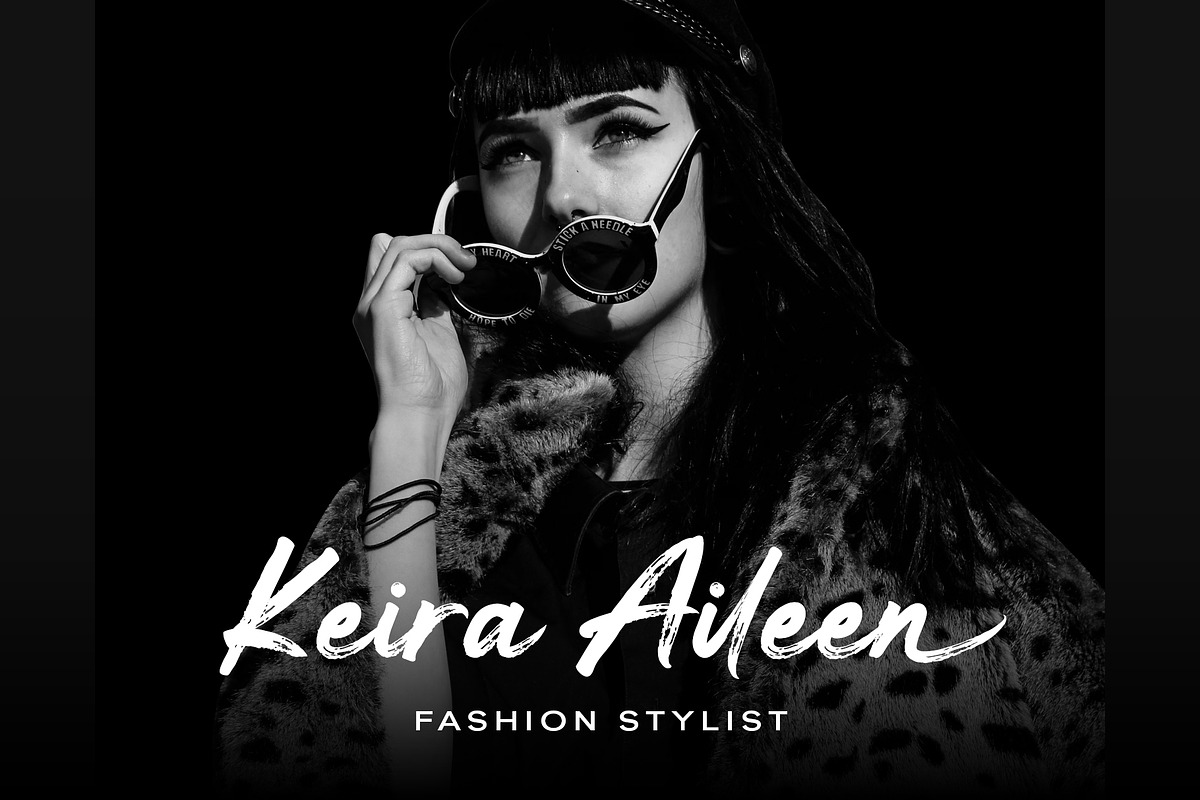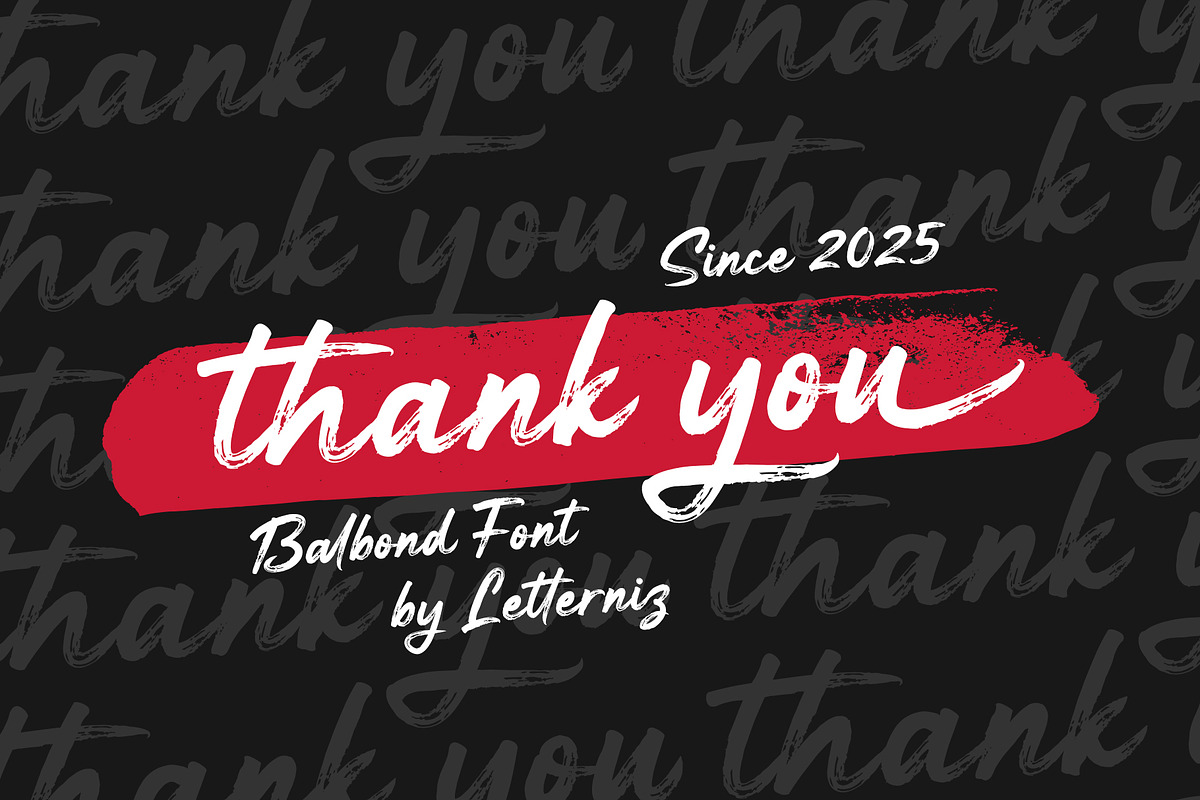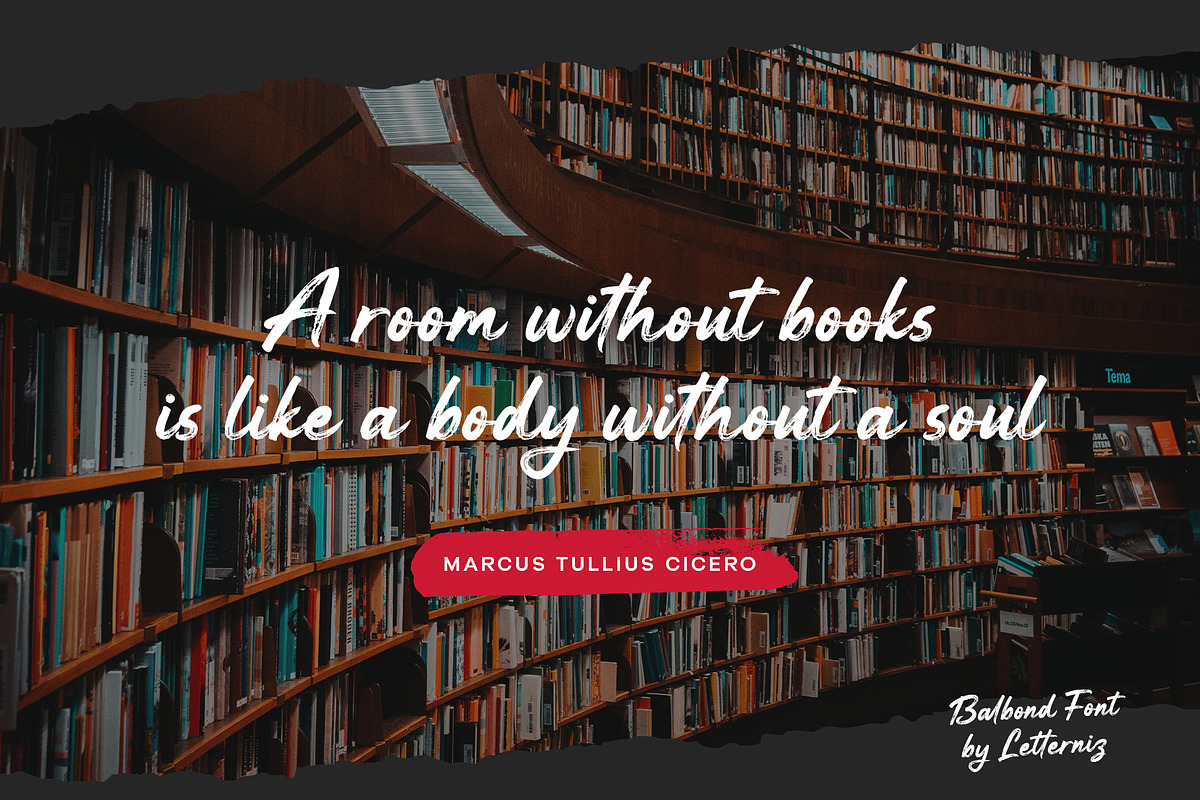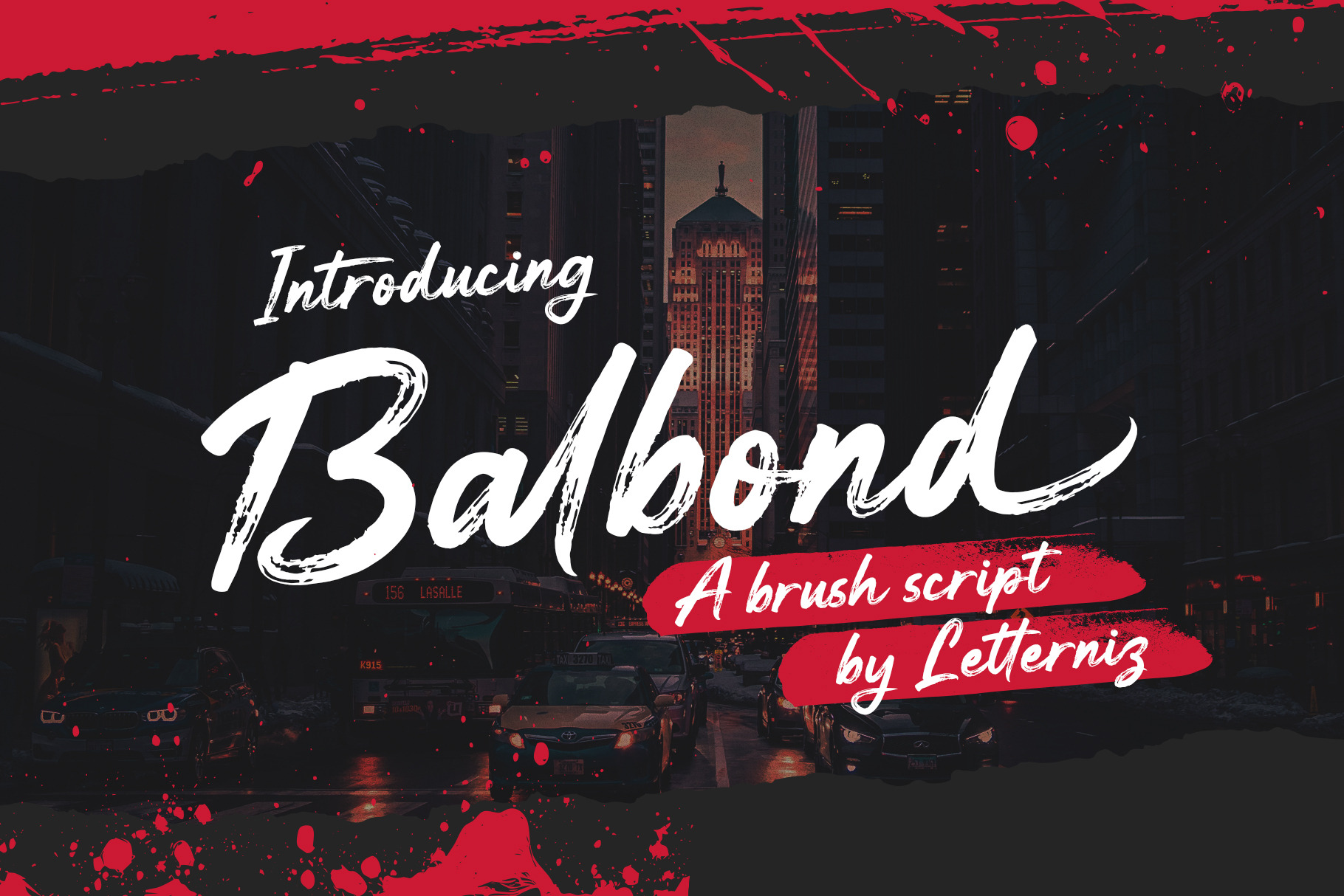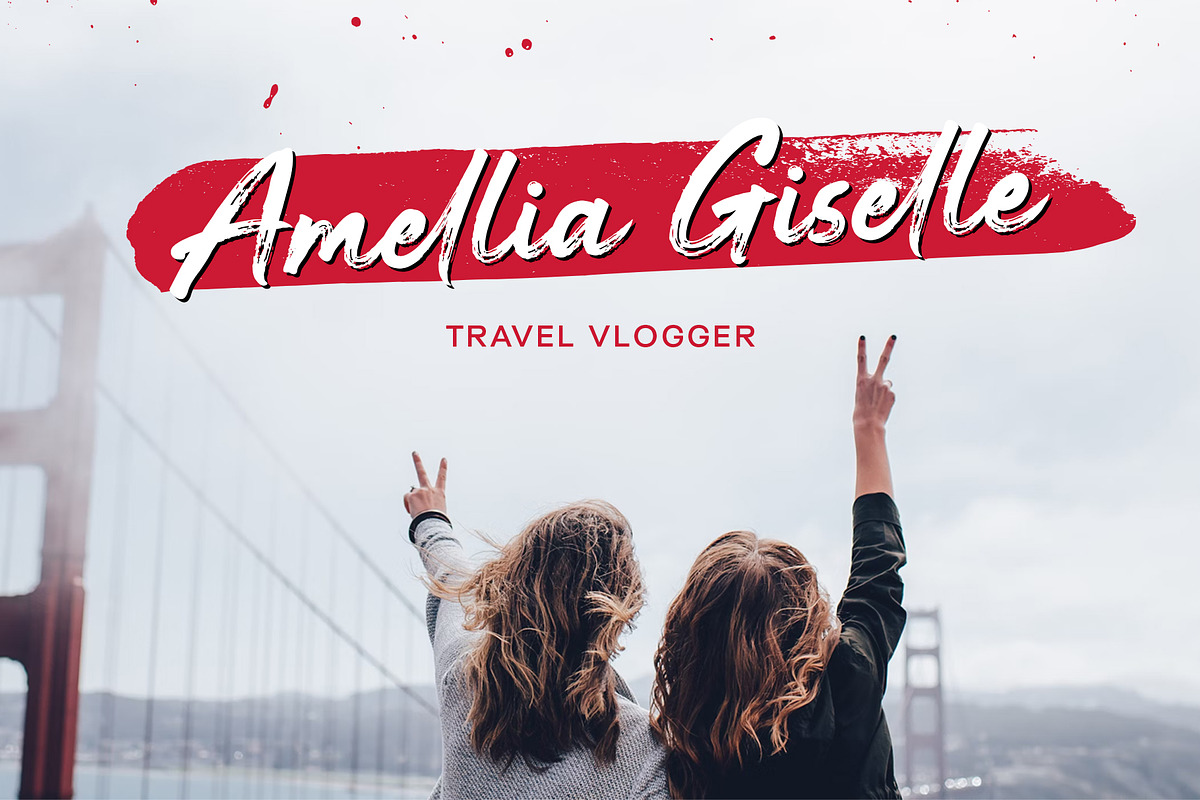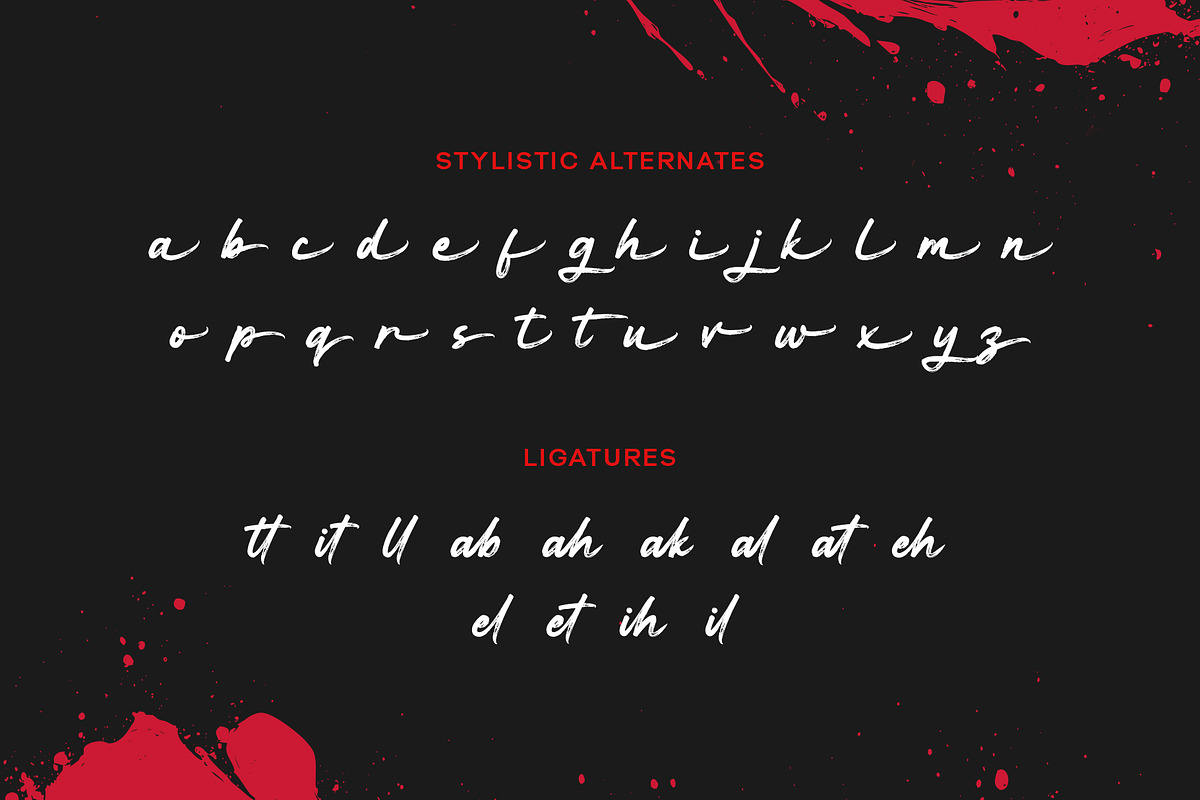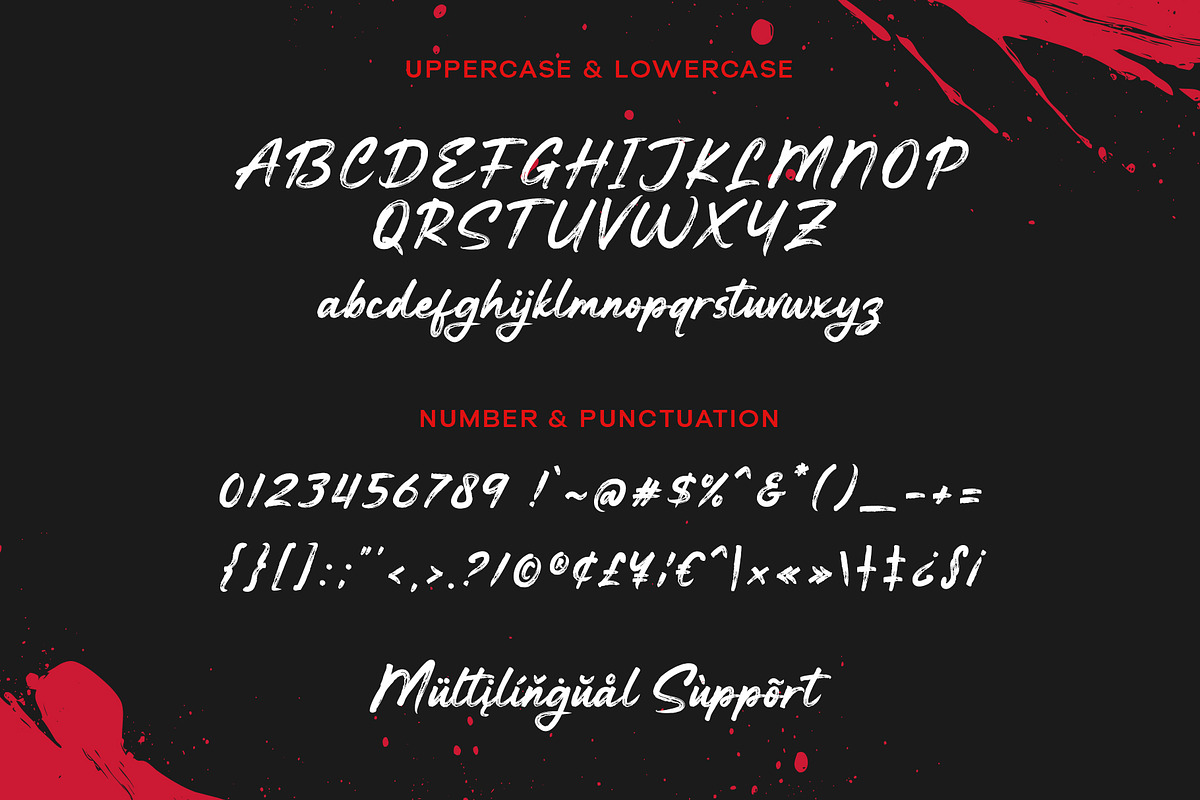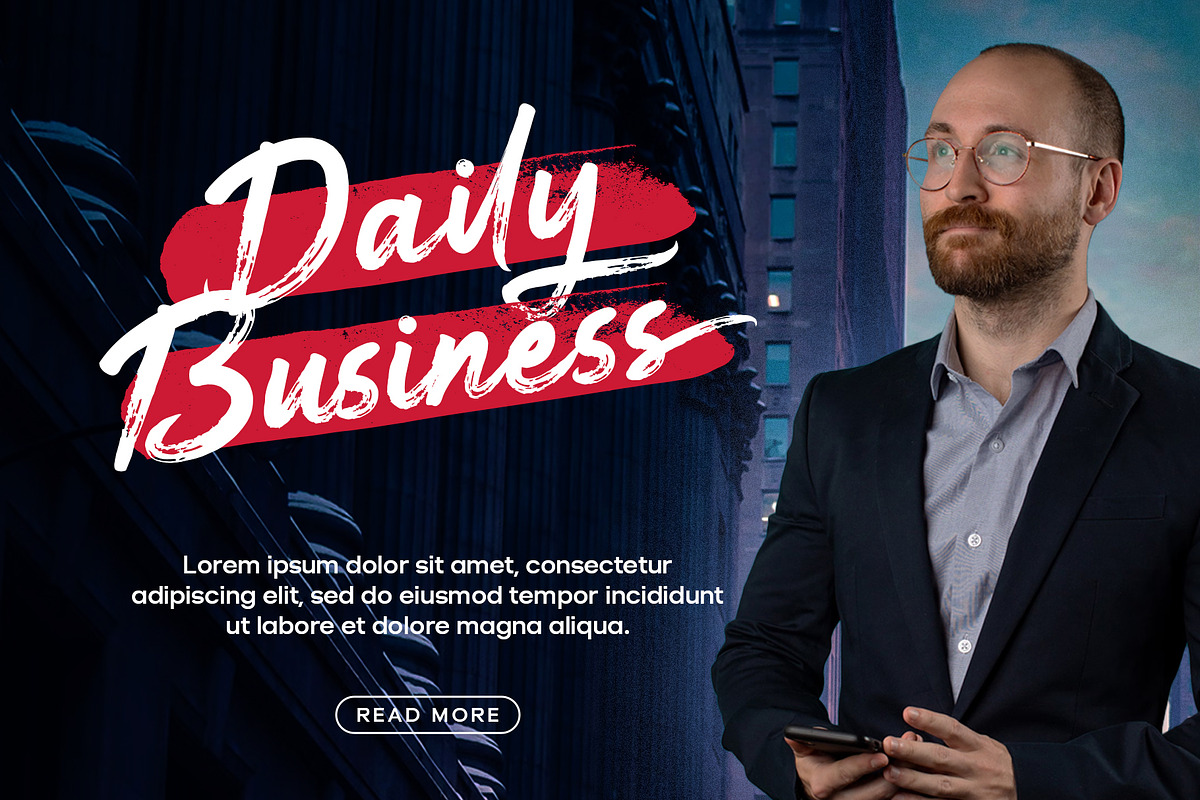
Balbond Brush Script Marker Font
Balbond Brush Script Marker Font is a beautiful brush signature font, with its rugged texture and dynamic letterforms. Made for any professional project brandings, such as, signature logos, watermarks, wedding invitations, brandings, promotions, product packagings, posters, apparel, and any project that needs a touch of authenticity and creativity.
Balbond Brush Script Marker Font includes a full set of hand-writing uppercase and lowercase letters, numerals, punctuations, and ligatures. This font gives a realistic hand-writing style.
Uppercase & lowercase letters
Numerals & punctuation